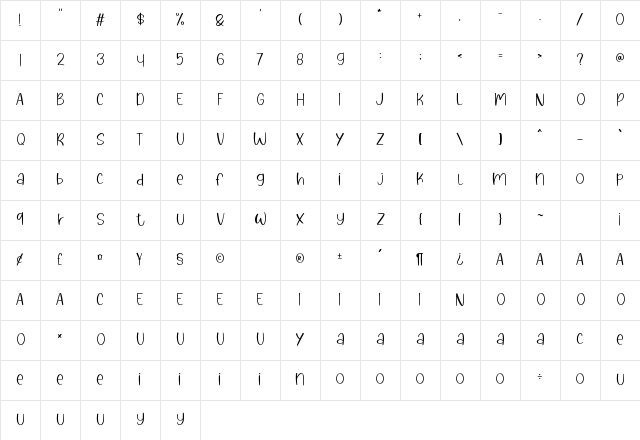
Salty Cracker Regular Free Font
Salty Cracker Regular
Foundry: Graphix Line Studio
Designer: Aldi Raya Pradipta
Design Context for Salty Cracker
Salty Cracker is a composed and adaptable typeface that performs quietly and consistently across a wide range of design contexts.
Pro Tip: Use Salty Cracker in both headline and body roles to test its range before committing to a single application.